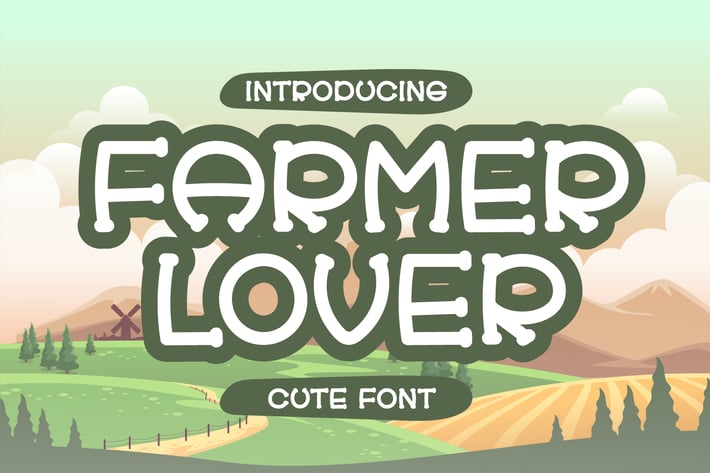
Farmer Lover - Display Font
Introducing Farmer Lover - Display Font
Farmer Lover is a playful serif font with masterfully assorted letters. Extremely attractive and solemn, this font is sure to make any of your creations stand out and come alive!